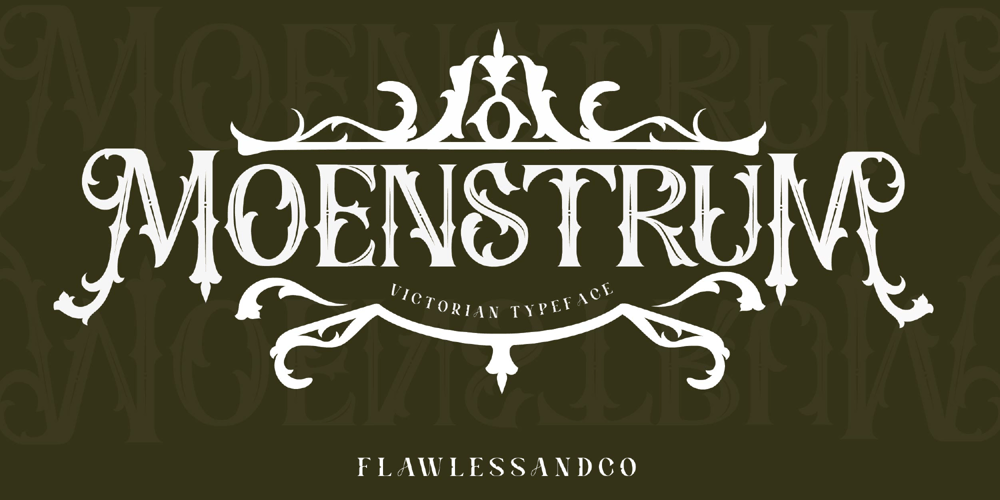
Moenstram Font Family was designed by Achmad Yani and published by Flawlessandco. Moenstram contains 1 styles and family package options. Moenstram is an authentic and unique blackletter font that made with bold and striking style.An Original typeface that suitable for any graphic designs such as branding materials, t-shirt, print, business cards, logo, poster, t-shirt, photography, quotes .etcThis font support for some multilingual. Modern Sweet Retro that contains uppercase A-Z and lowercase a-z, alternate character, numbers 0-9, and some punctuation.If you need help, just write me! Thanks so much for checking out my shop!